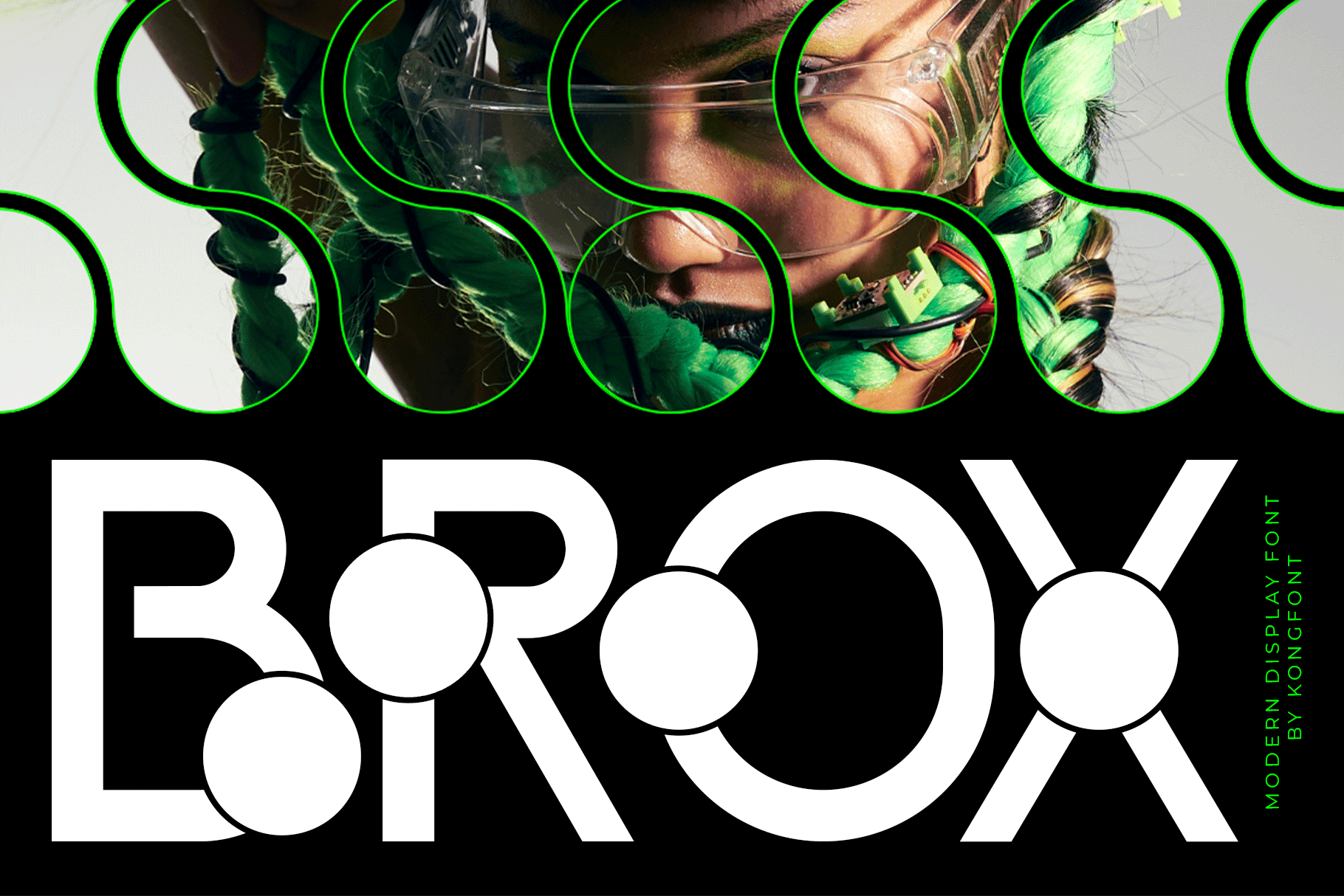
Brox - Modern Display Font
Introducing Brox, a modern display font designed to deliver clean strength and contemporary confidence. Featuring bold letterforms, balanced proportions, and sharp clarity, Brox is crafted for designers who want their typography to feel powerful, modern, and unmistakably clear.
Brox includes uppercase and lowercase letters, numerals, punctuation, and multilingual support, ensuring versatility for global creative needs. Whether you're building a modern brand identity or crafting attention grabbing marketing visuals, Brox delivers confident expression with clean, professional style.